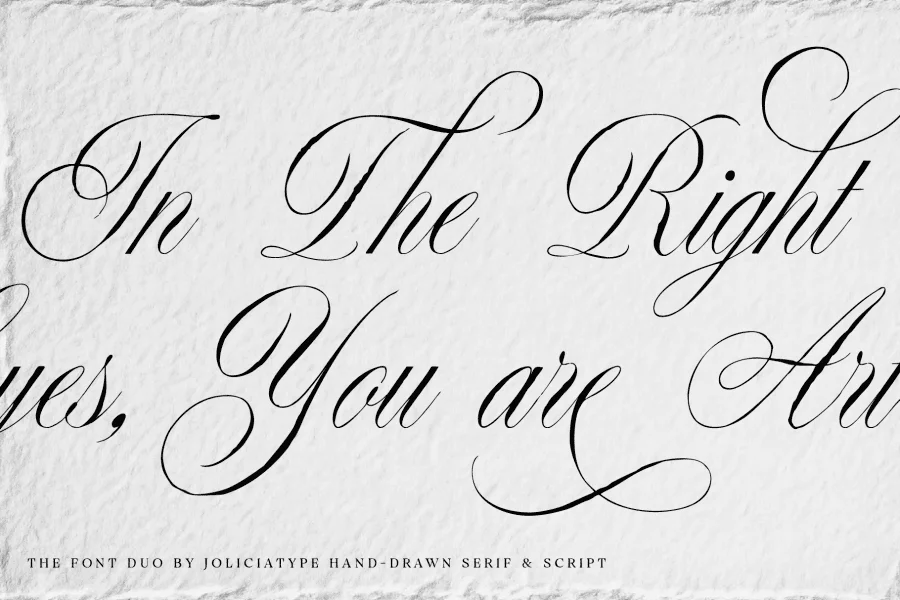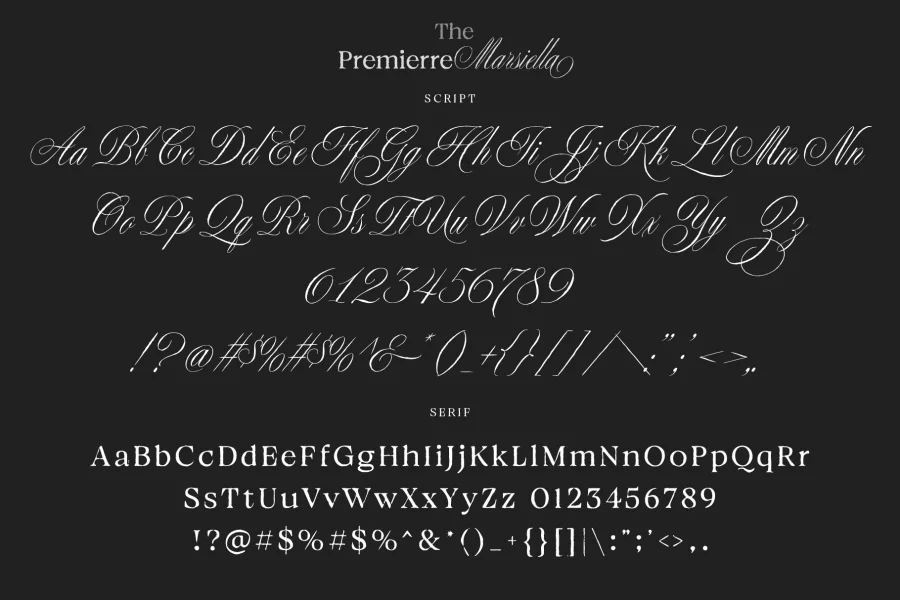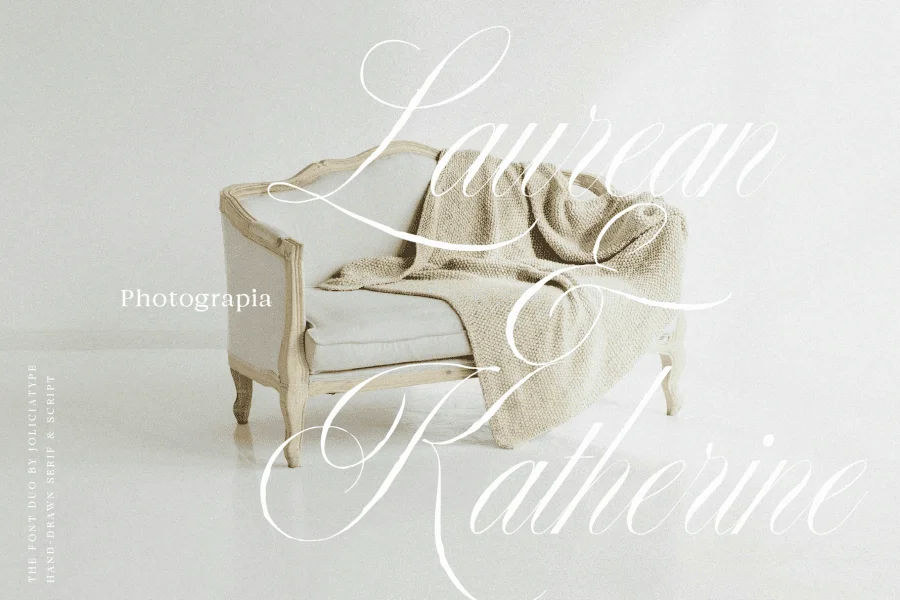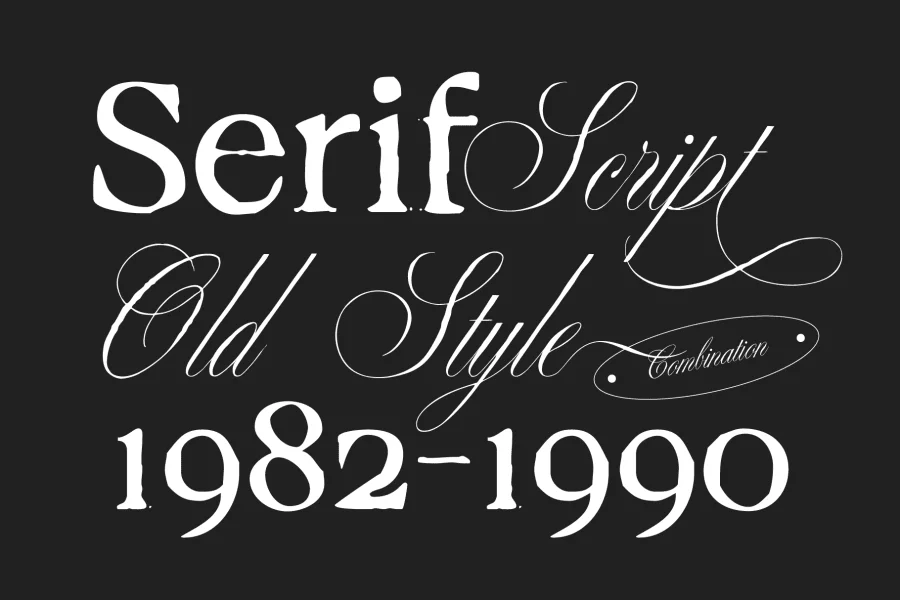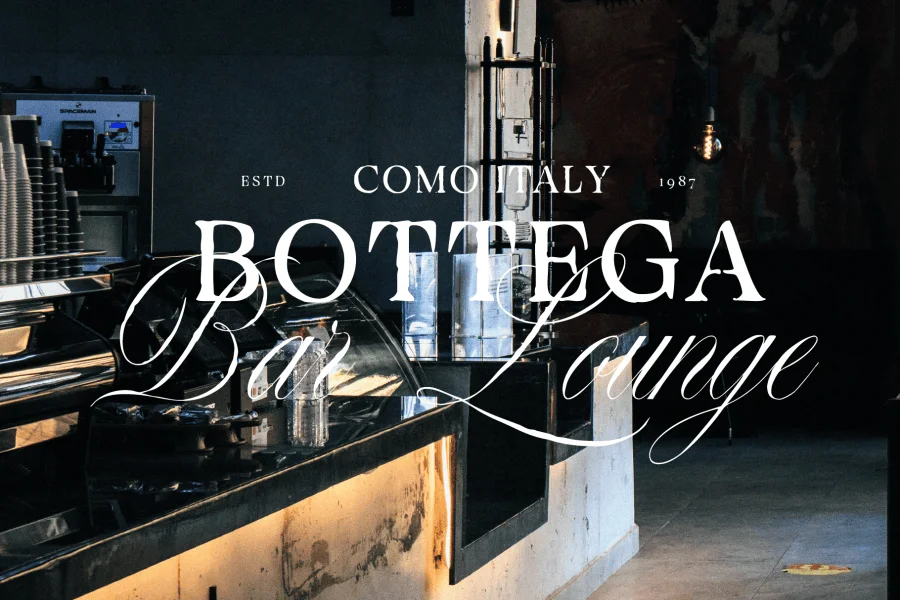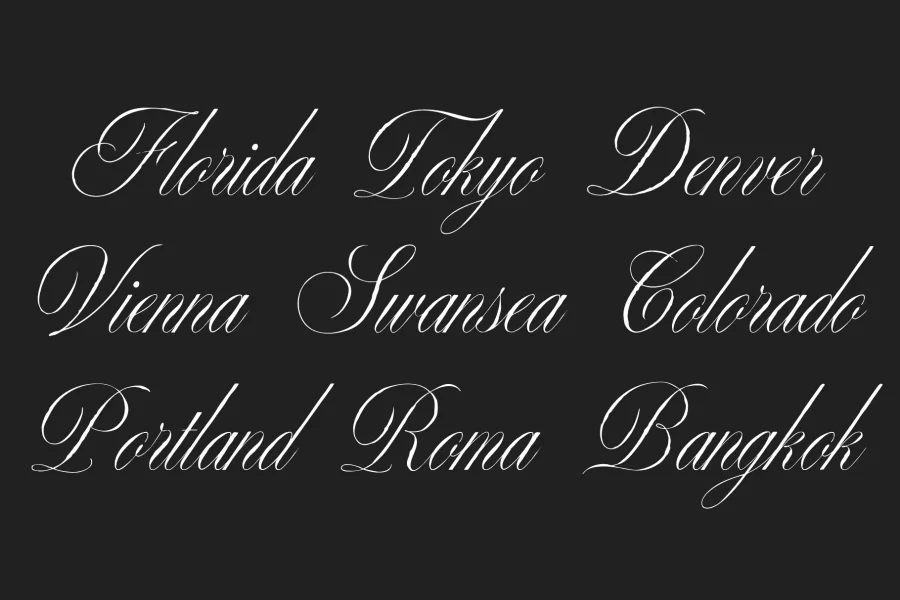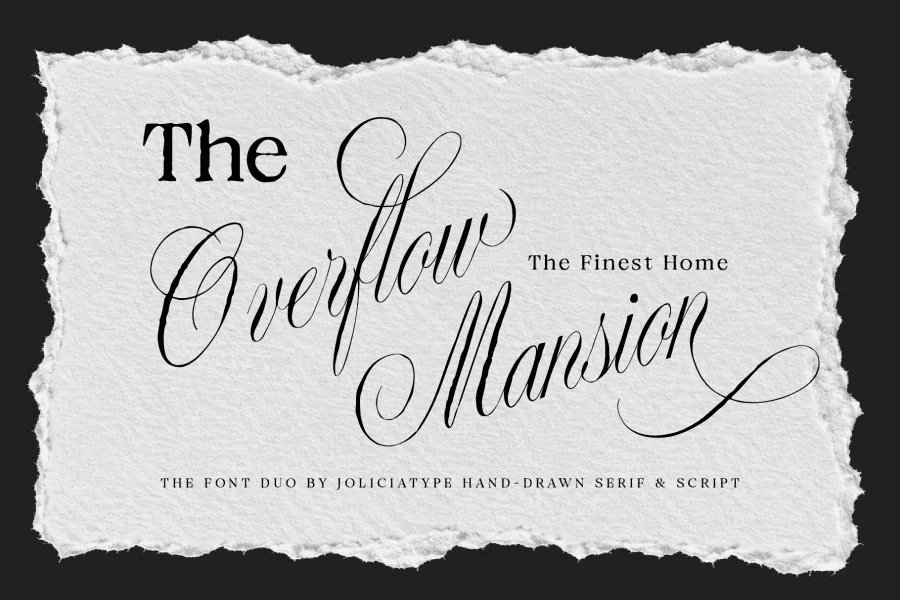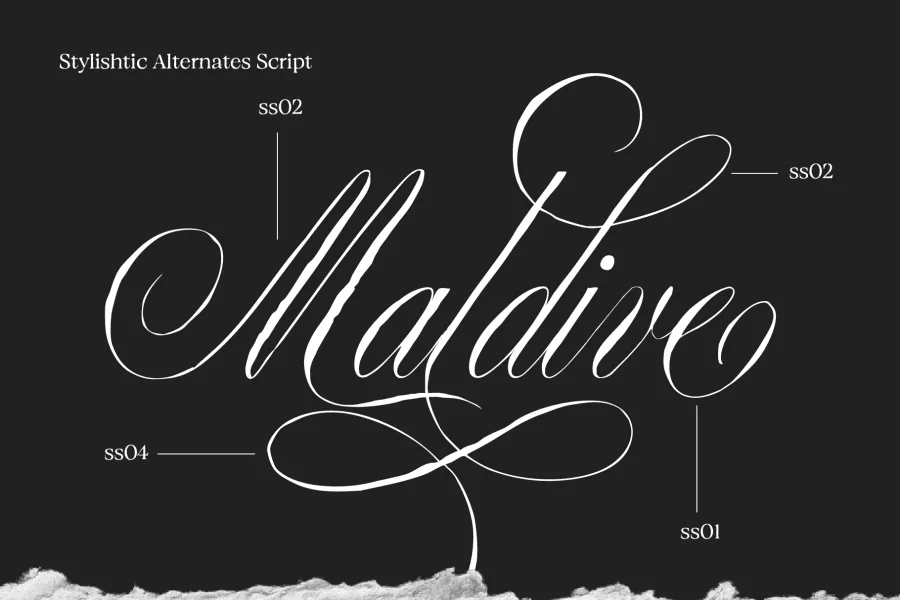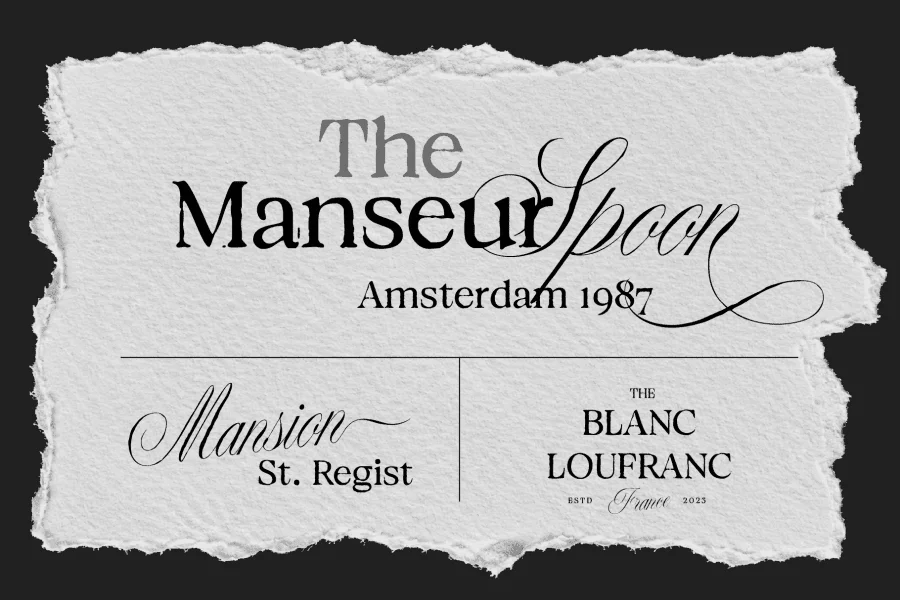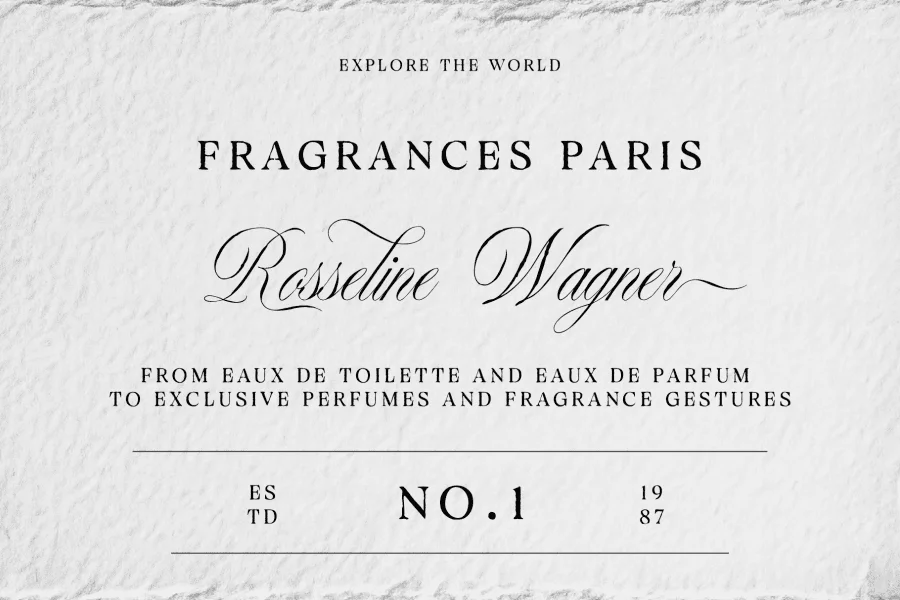
Premierre Marsiella is an elegant, high-contrast script typeface defined by its dramatic, sweeping gestures and fluid, calligraphic rhythm. The letterforms exhibit a variation in line weight, transitioning seamlessly from razor-thin hairline entry strokes and loops to rich downstrokes. Its posture is gracefully slanted, featuring elongated ascenders and descenders that culminate in dramatic, looping swashes and tapered tails. The overall construction feels liquid yet highly disciplined, capturing the essence of classic copperplate calligraphy with a modern, expressive energy.
This sophisticated script is tailor-made for high-end editorial layouts, luxury branding, and boutique identity design. It brings an air of old-world romance and artisanal craftsmanship to wedding stationery, premium wine labels, and upscale hospitality signage, such as identity systems for heritage hotels or intimate cocktail lounges.